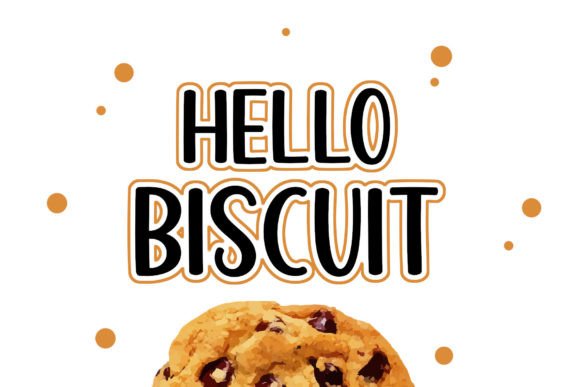
Sunday Farmhouse Font
Sunday Farmhouse is a sans-serif font with a cute and quirky shape.
This font is suitable for several of your design projects such as posters, birthday cards, t-shirt designs, mugs, and tote bags, and can be used for various handmade creations.